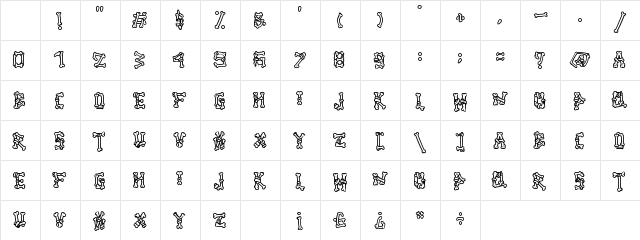
Complete Ghoul Bone - Personal Use Outline Regular glyph index. Displaying only characters natively supported by Ghoul Bone - Personal Use Outline Regular font.
Ghoul Bone - Personal Use Outline is built around its visual character rather than neutral utility - its distinctive forms are designed to make an impression at display sizes.
Font Pairing: Pair with a clean neutral sans-serif for body copy to let Ghoul Bone - Personal Use Outline's character lead without overwhelming the composition.
Pro Tip: Use Ghoul Bone - Personal Use Outline exclusively at display sizes - it was designed to be seen, not read at length. Let a neutral companion handle body copy.